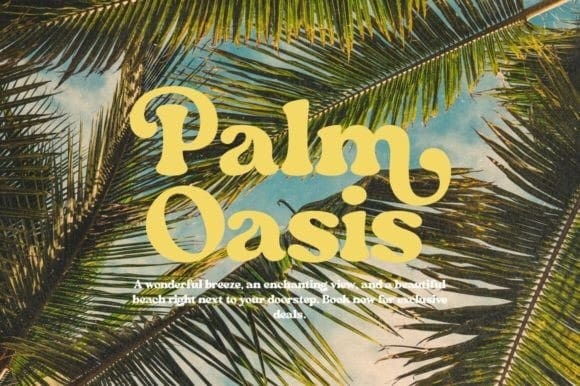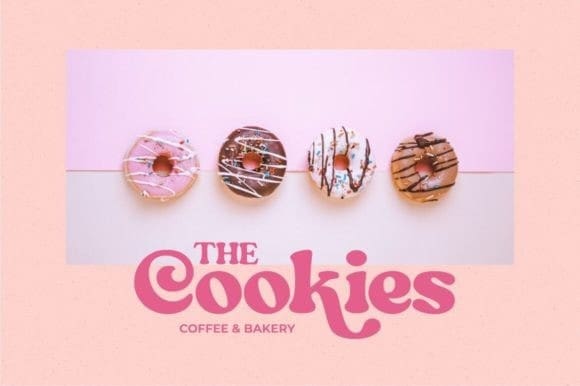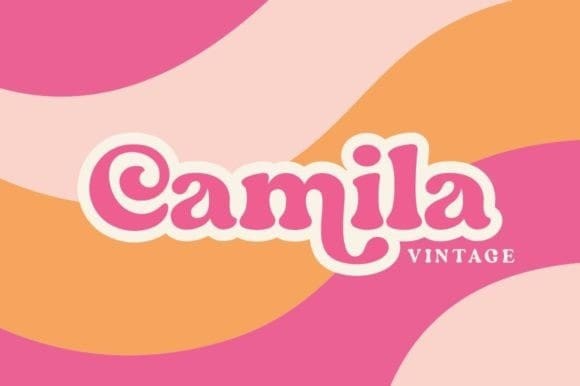
Camila Vintage Font
Camila Vintage Font is a modern and elegant retro serif, complete with your OpenType feature access to access a large selection of alternative fonts. It is designed to enhance any design you love. Camila Vintage has full set of modern uppercase and lowercase letters, numerals, punctuation, also multilingual symbols.